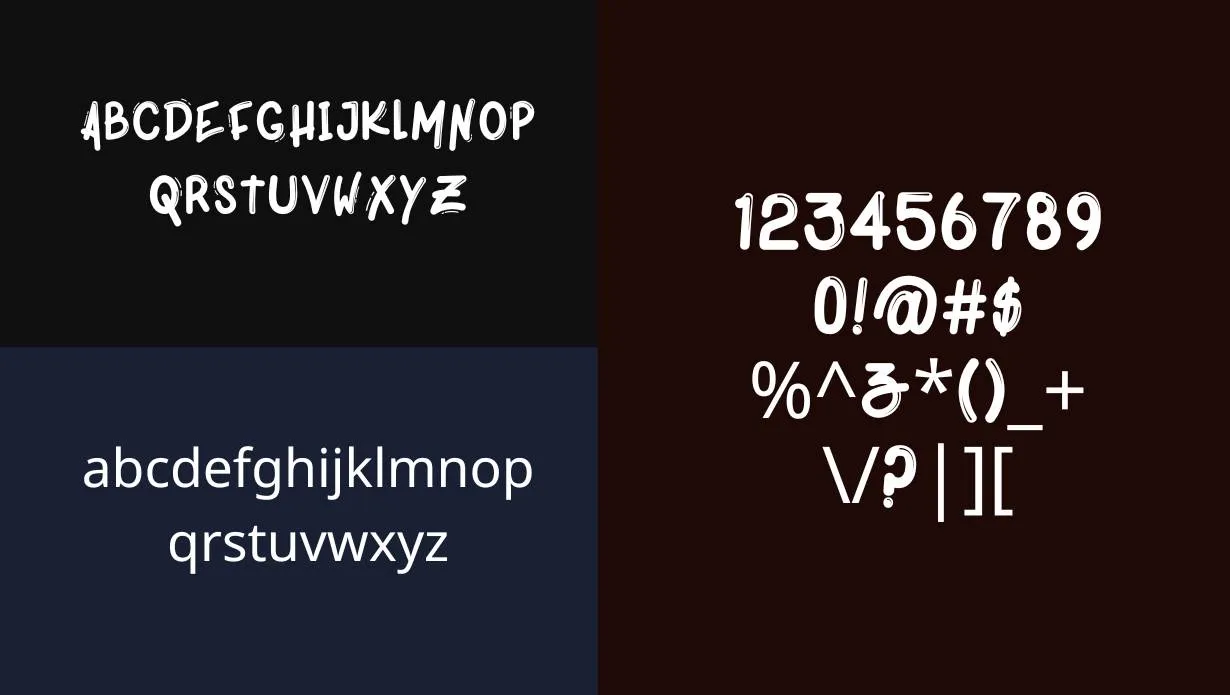
Xplore Font is an adventurous and dynamic typeface that adds a sense of exploration and movement to designs. Its bold lines and energetic design make it ideal for travel blogs, outdoor event branding, and adventure-themed graphics.
| Name | Xplore Font |
| Designer | Jimmy Kalman's |